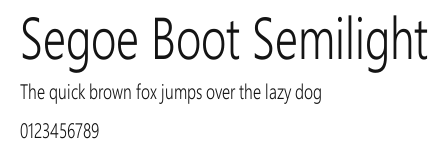
Segoe Boot Semilight Preview
• Font Name: Segoe Boot Semilight
• Full Font Name: Segoe Boot Semilight
• Manufacturer: Microsoft Corporation
About Segoe Boot Semilight.ttf
Segoe Boot Semilight.ttf is a modern, elegant sans-serif font designed for ultimate readability and visual harmony. Perfect for branding, headlines, web design, and print materials.